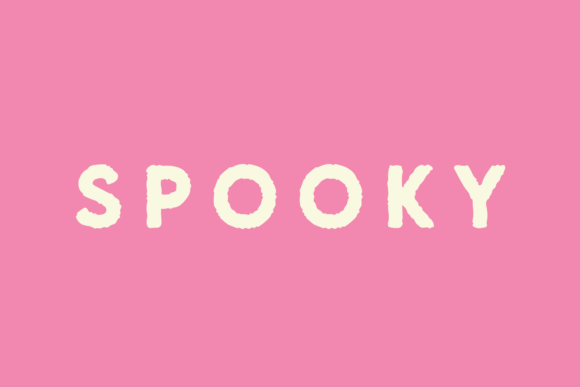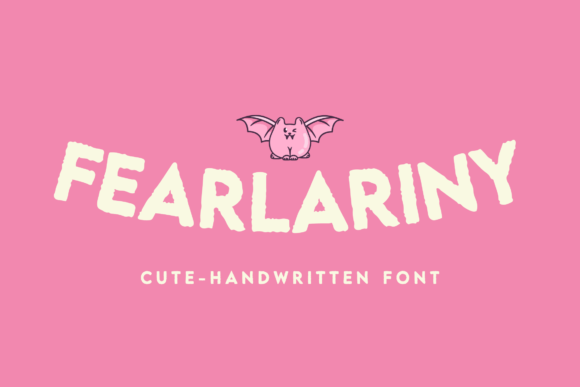
Introduction to Fearlariny Font
Fearlariny is a delightful handwritten display font that exudes cuteness and quirkiness.
With its playful letterforms and whimsical details, it adds a touch of charm to any design Perfect for children’s books, party invitations, or creative branding, Fearlariny captures the imagination and brings a sense of joy and fun to your projects.